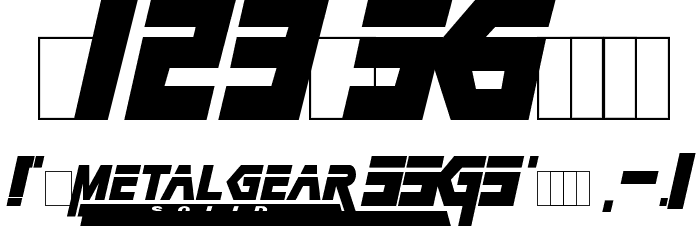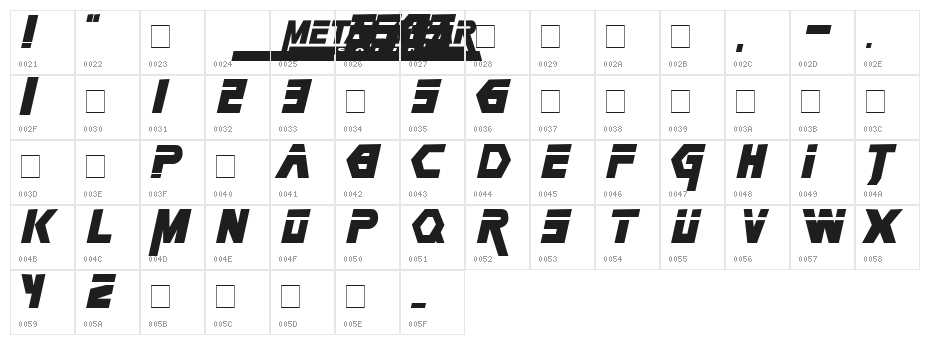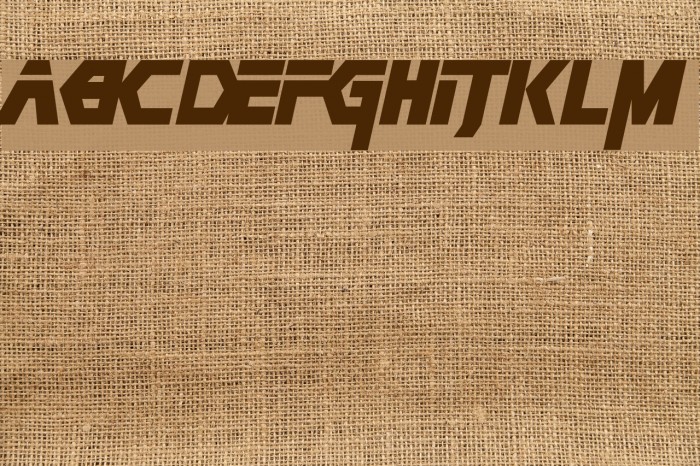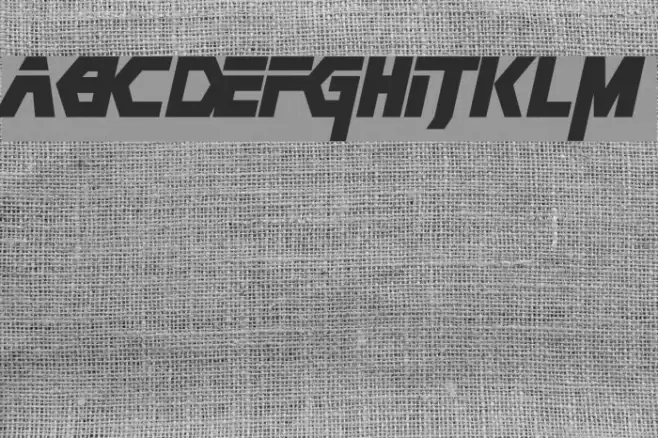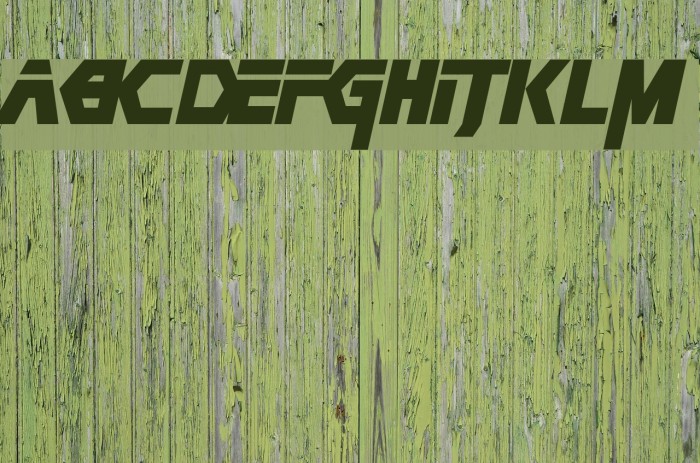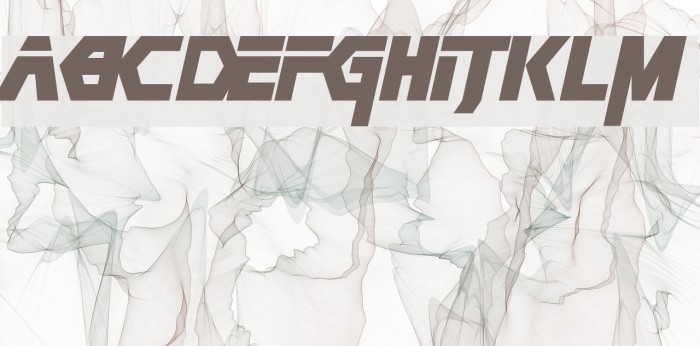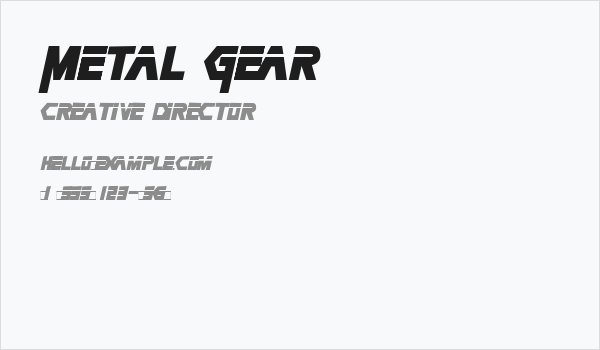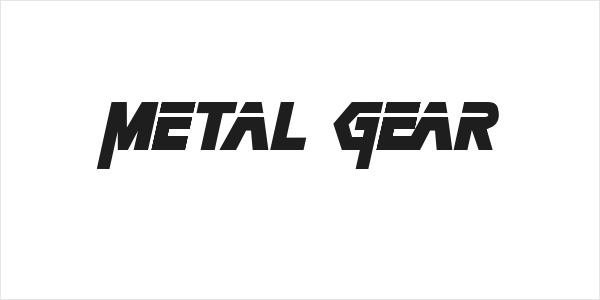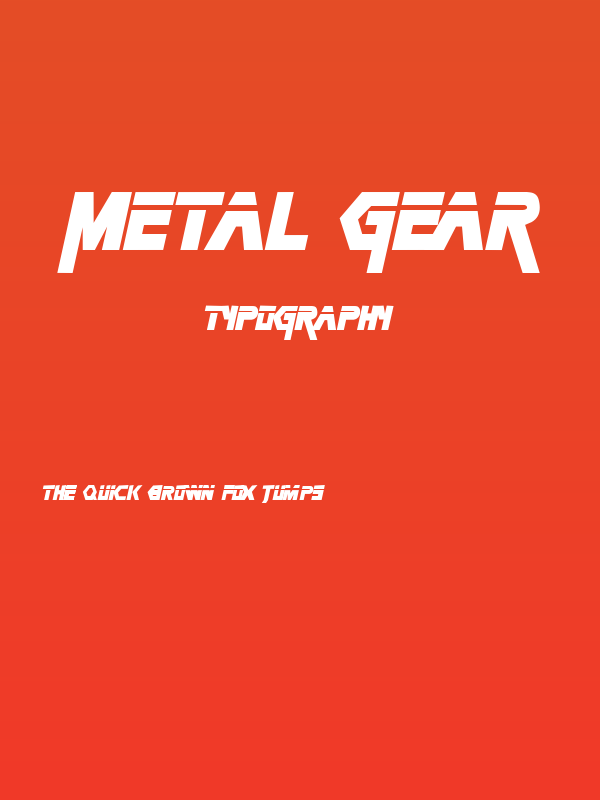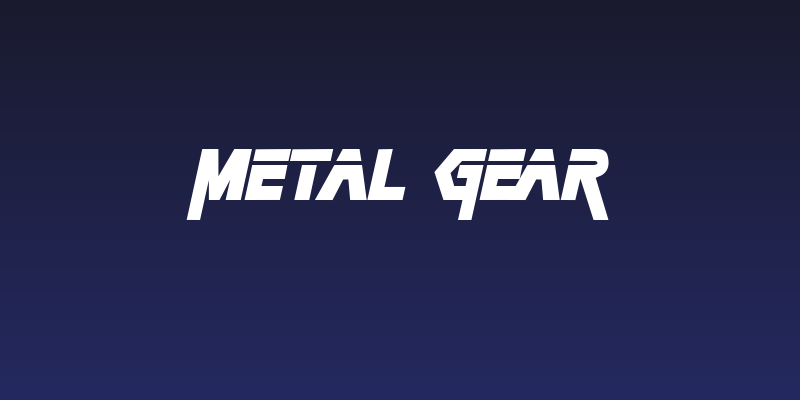
Metal Gear Font
Metal Gear Description
This font features a bold, futuristic design with sharp angles and a geometric structure. The characters are heavily stylized, giving them a unique, aggressive appearance that is reminiscent of industrial or technological themes. The uppercase and lowercase letters share a consistent style, with a strong emphasis on diagonal lines and angular cuts. The numbers and special characters maintain this aesthetic, ensuring a cohesive look across all glyphs. The font's boldness and distinctiveness make it stand out, suitable for projects that require a modern and edgy feel.
Proposed ProjectsIdeal for video game titles, tech branding, sci-fi posters, and futuristic-themed designs.